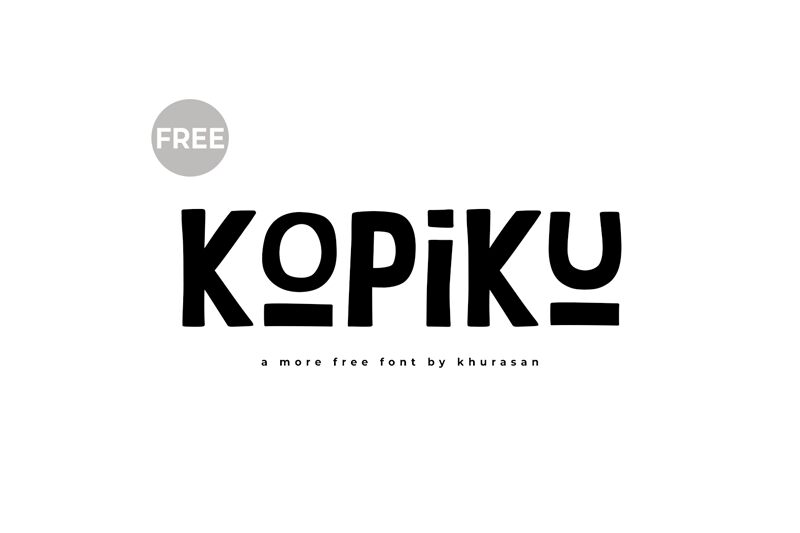
Kopiku
Kopiku, crafted by the talented Khurasan, is a bold display font that commands attention with its playful cartoon style. Each character bursts with personality, making it perfect for projects that need a touch of whimsy and fun. The bold weight of Kopiku ensures it stands out in any design context, from children's books to eye-catching posters and vibrant branding materials.
Its exaggerated features bring a unique charm that can transform ordinary text into captivating visual art. Whether you're looking to add a splash of joy to your designs or create an inviting atmosphere, Kopiku's distinct style opens up endless creative possibilities.